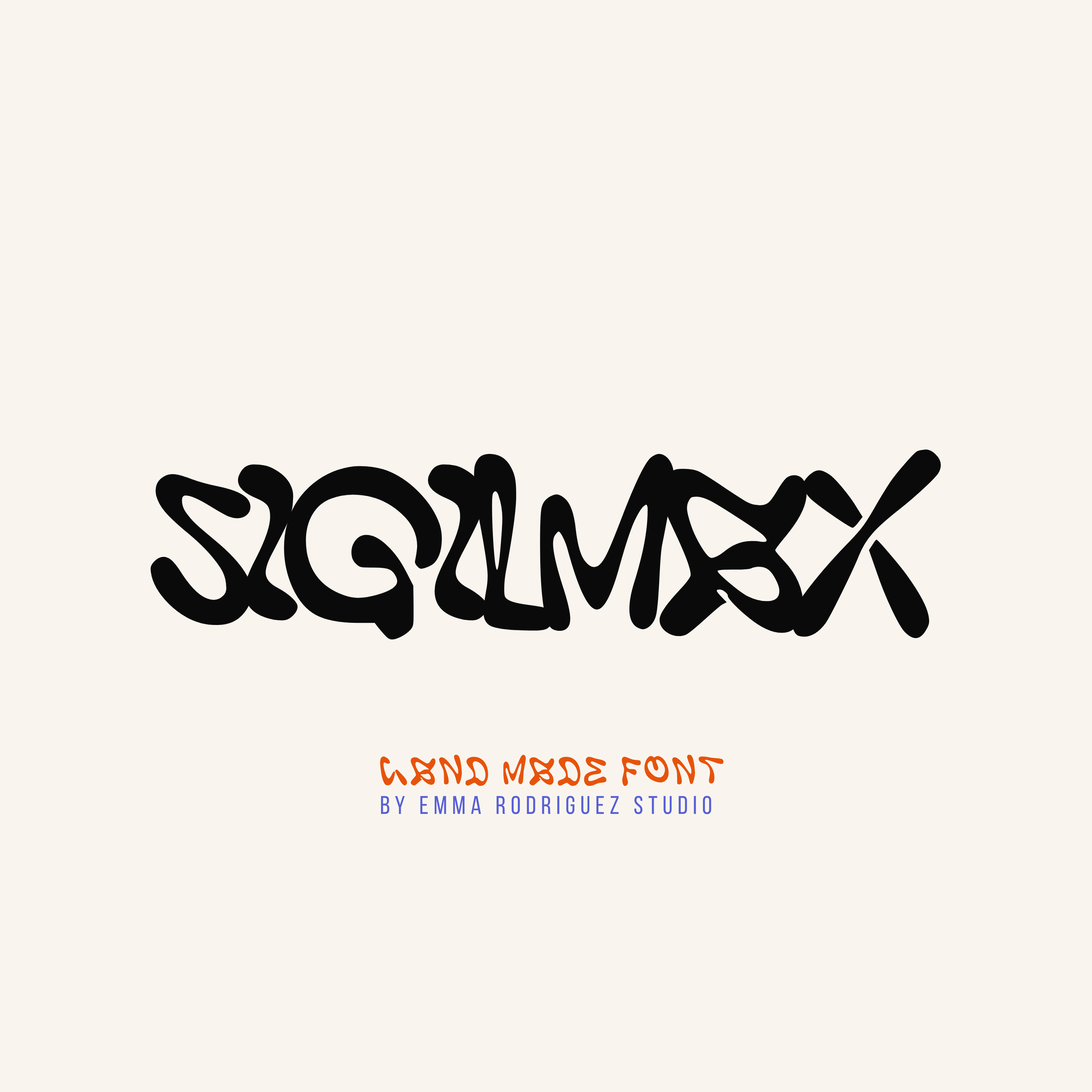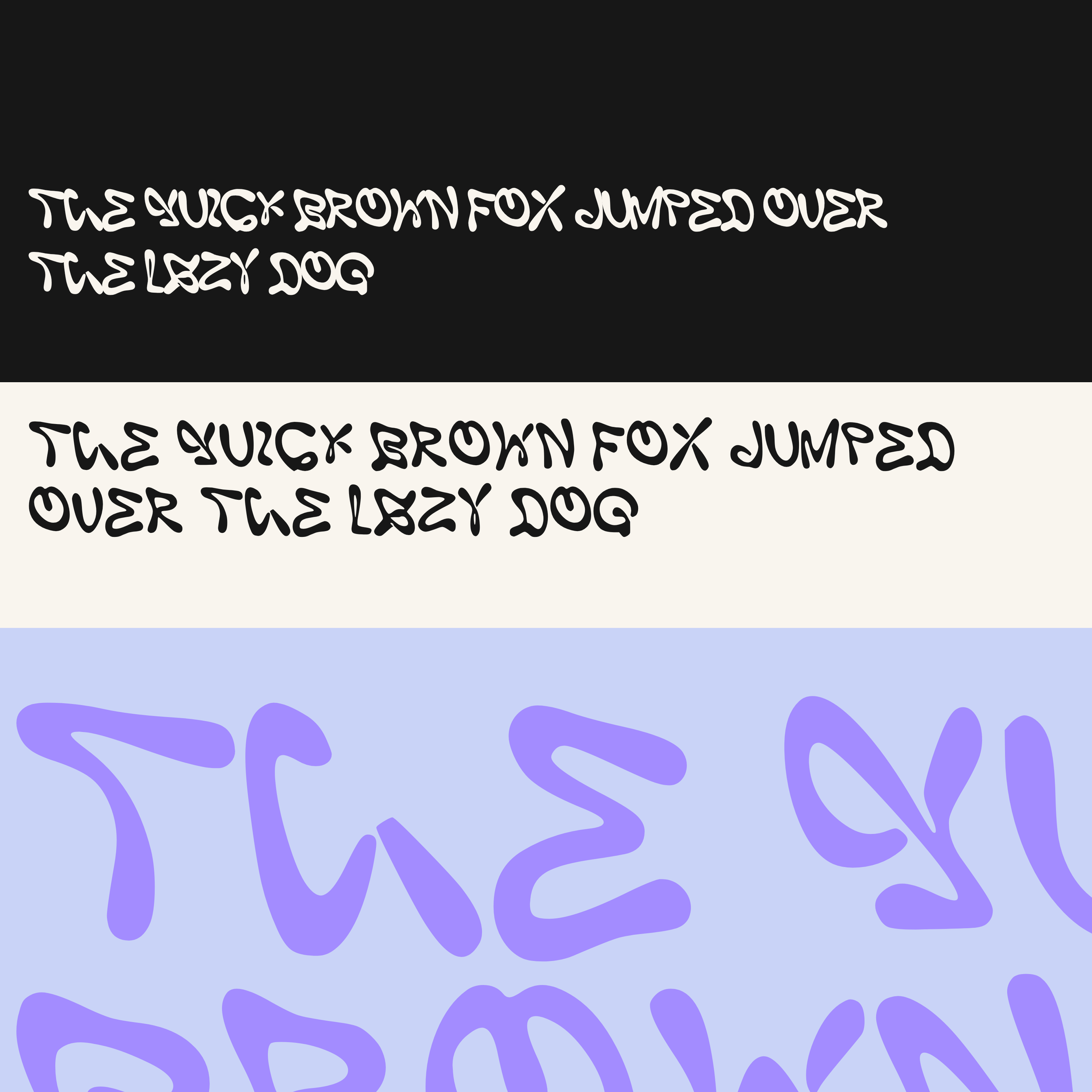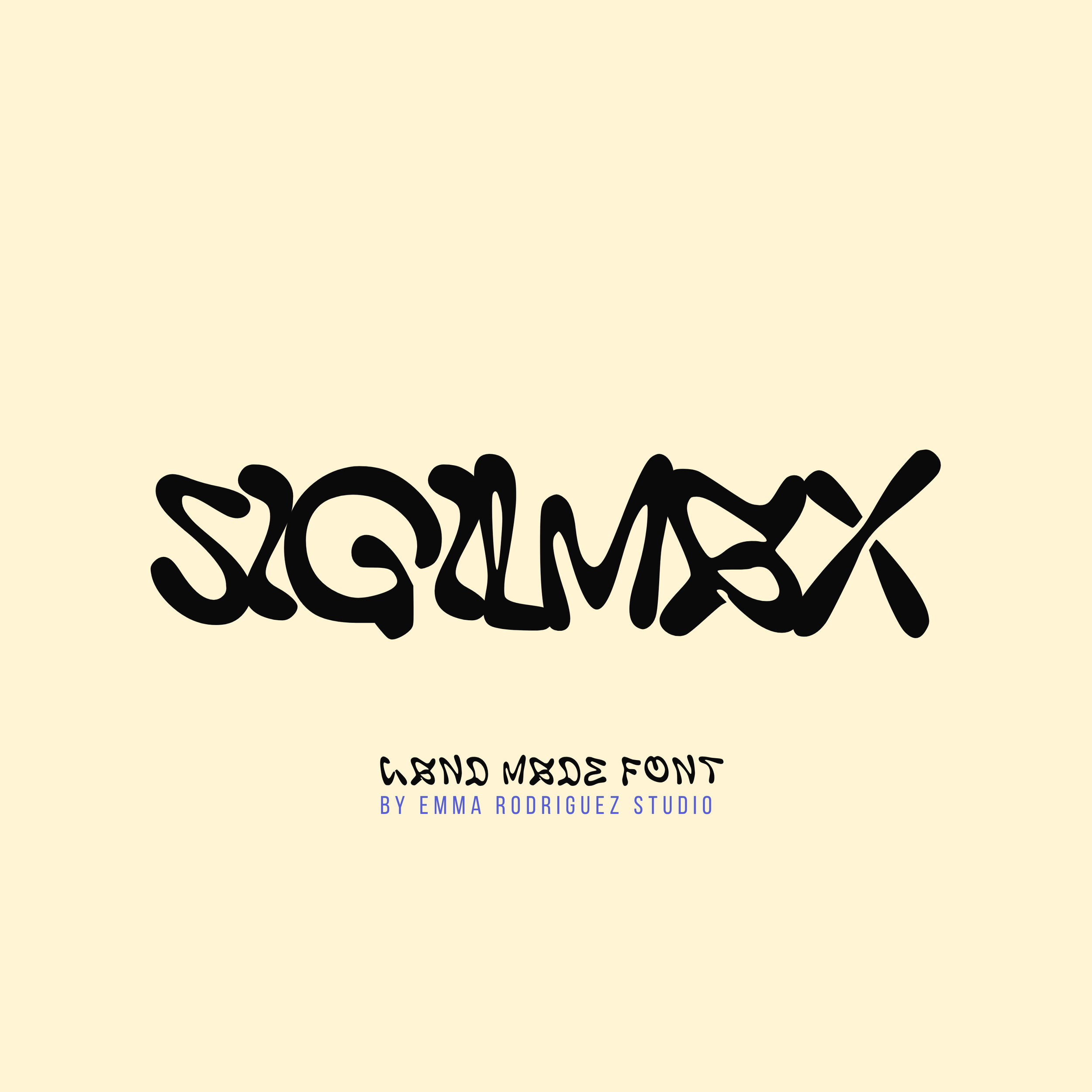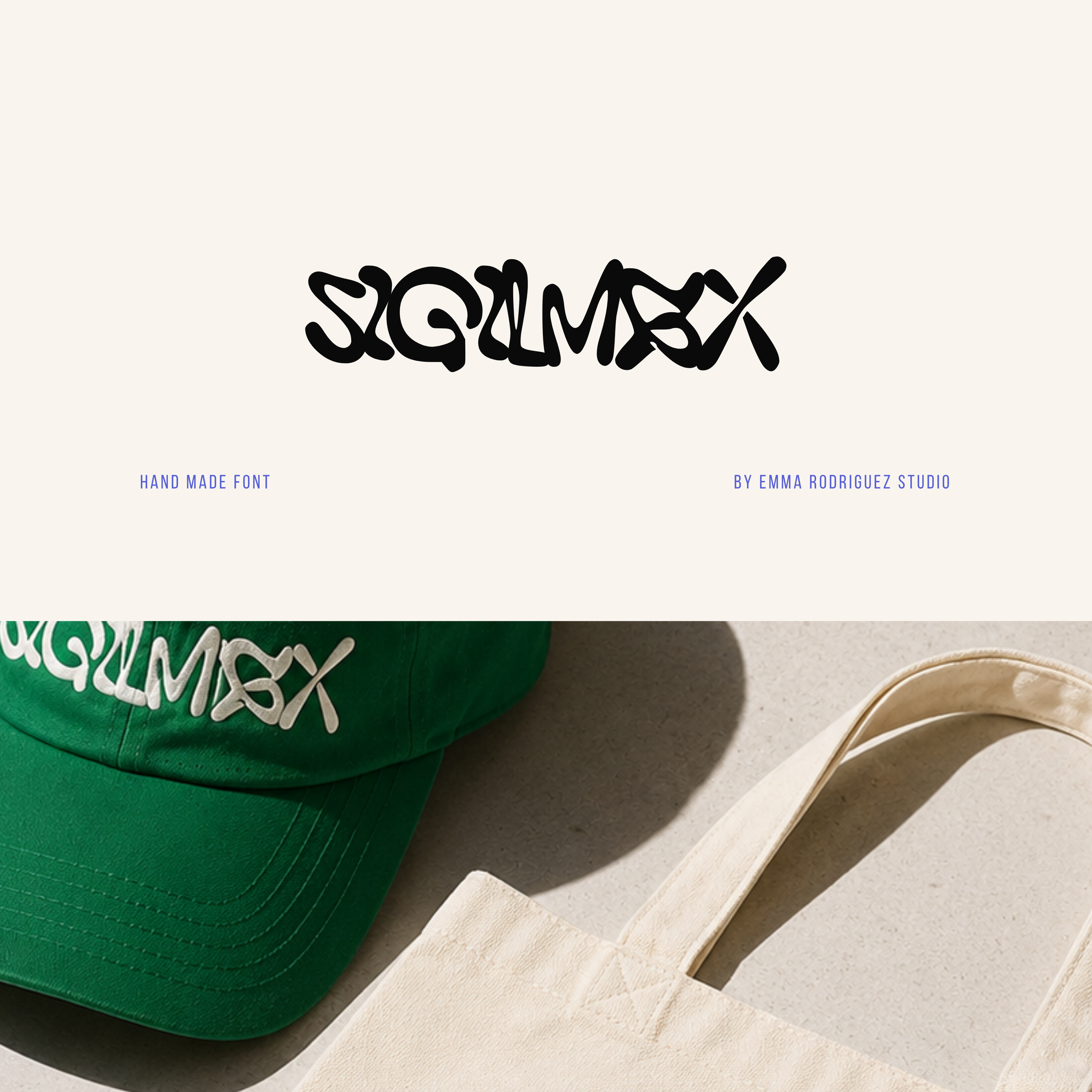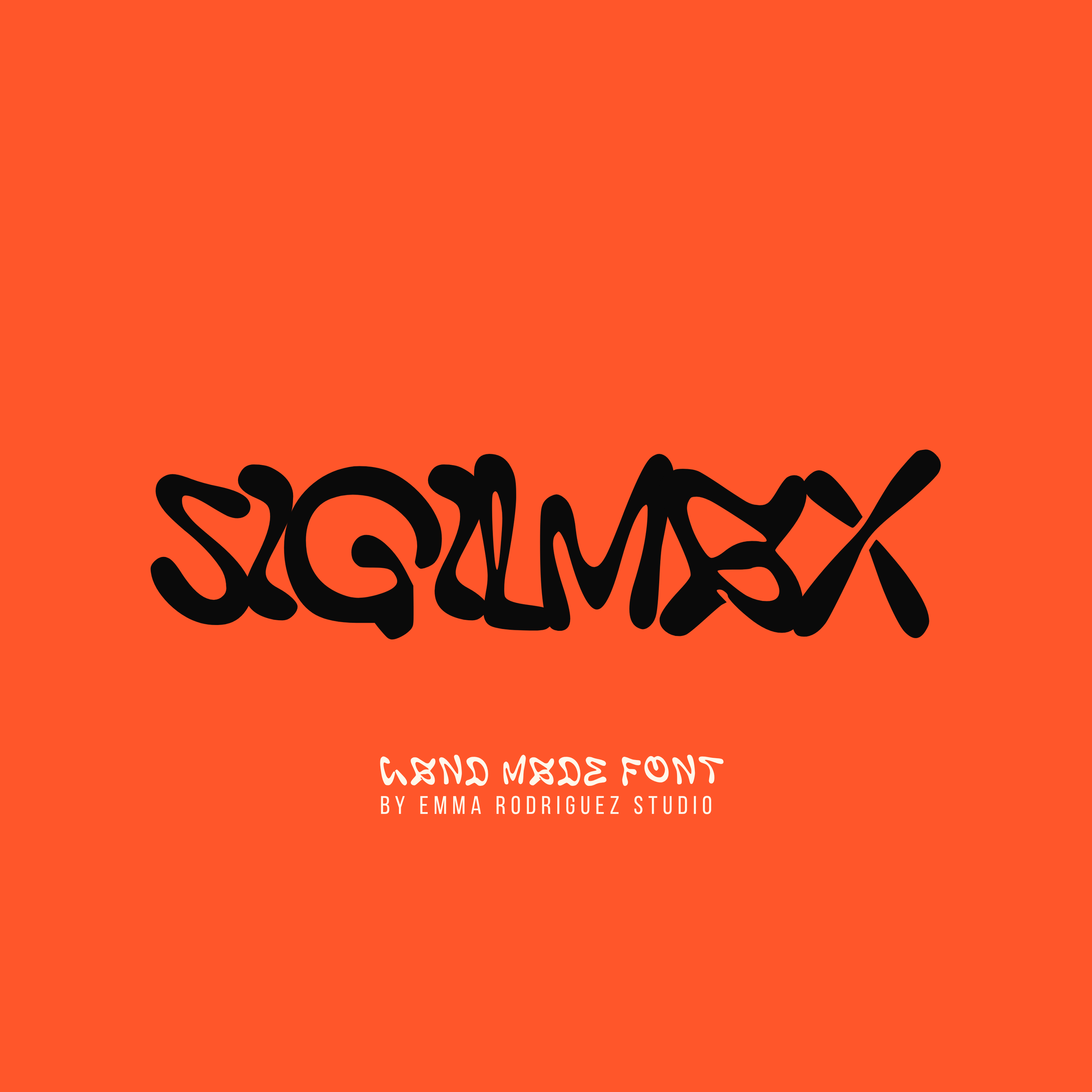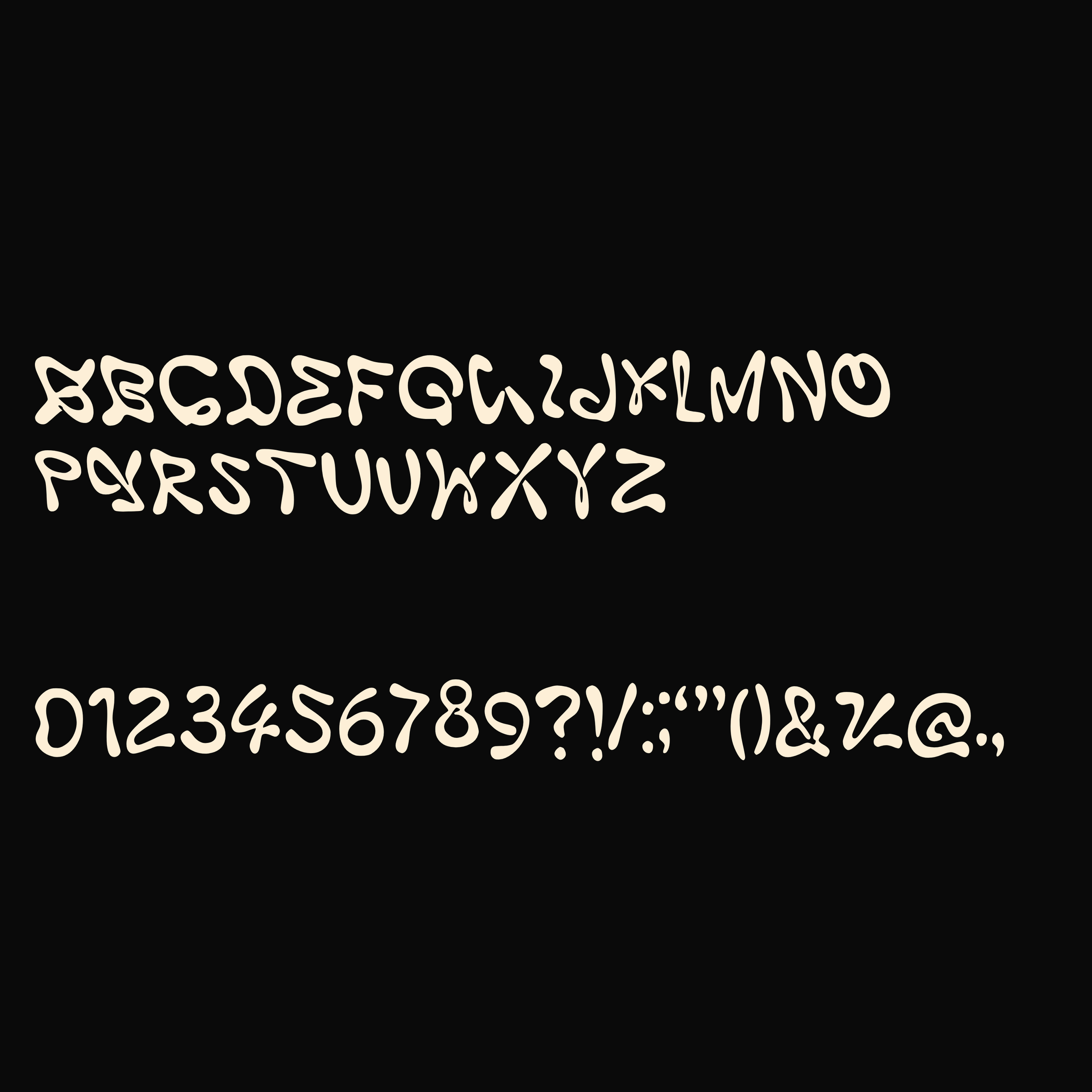
Sigilmax Font - Symbol Abstract Type
Meet Sigilmax, an abstract display font that sits somewhere between typography, symbols, and illustration. Built from expressive hand drawn forms and unconventional letter shapes, it brings a playful, artistic personality to every design without feeling overworked or overcomplicated.
Rather than relying on clean geometry, Sigilmax embraces quirky curves, fluid strokes, and unusual proportions to create lettering that feels creative, experimental, and full of movement. Every character has its own identity, making words feel more like visual compositions than simple text.
Inspired by abstract mark making, contemporary illustration, expressive typography, and experimental graphic design, Sigilmax is perfect for creatives who want work that feels original and full of personality.
Whether you're creating branding, posters, editorial layouts, album artwork, apparel, packaging, stickers, or social media graphics, Sigilmax adds an unexpected visual language that immediately stands out.
• Uppercase letters
• Numbers and basic punctuation
The abstract forms, playful proportions, and unconventional letter construction are intentional design features that give Sigilmax its distinctive symbolic character.
Perfect for:
• Creative branding
• Editorial design
• Posters and prints
• Album artwork
• Art books and zines
• Apparel and merchandise
• Sticker designs
• Packaging design
• Fashion brands
• Social media graphics
• Creative studios
• Experimental typography